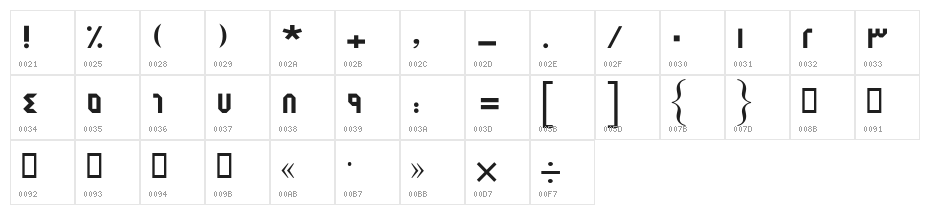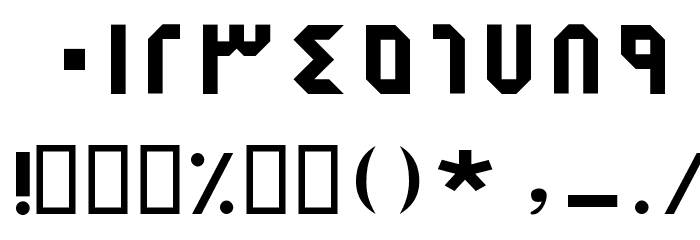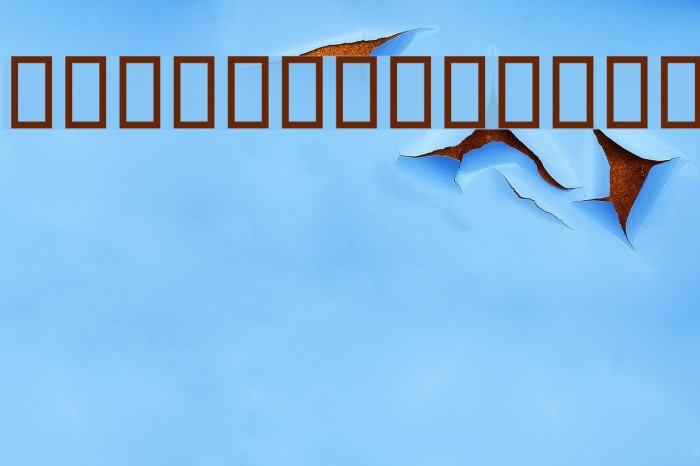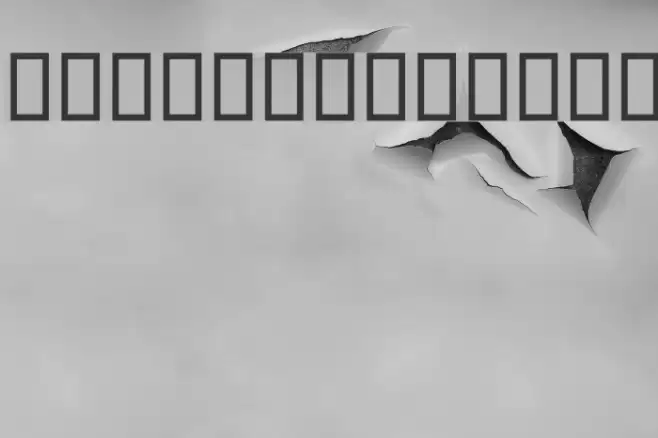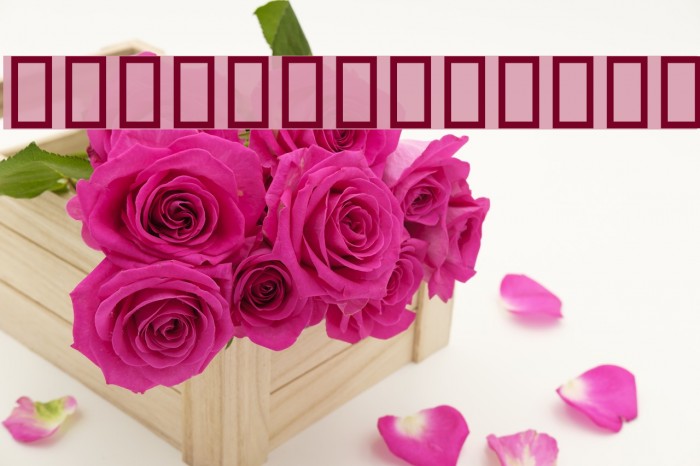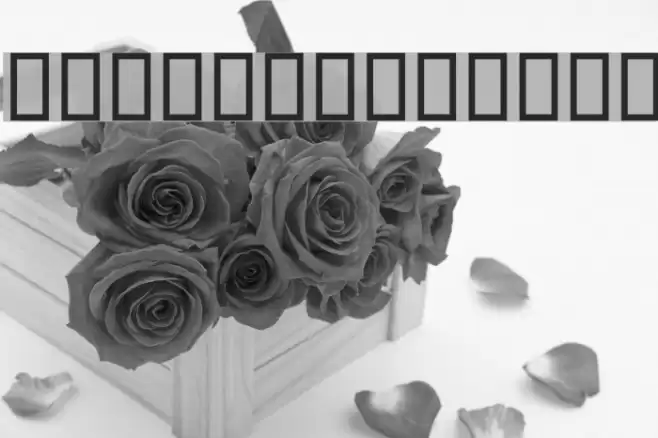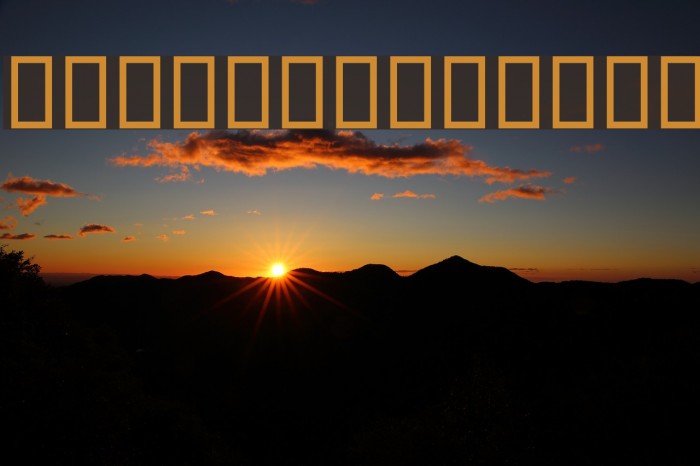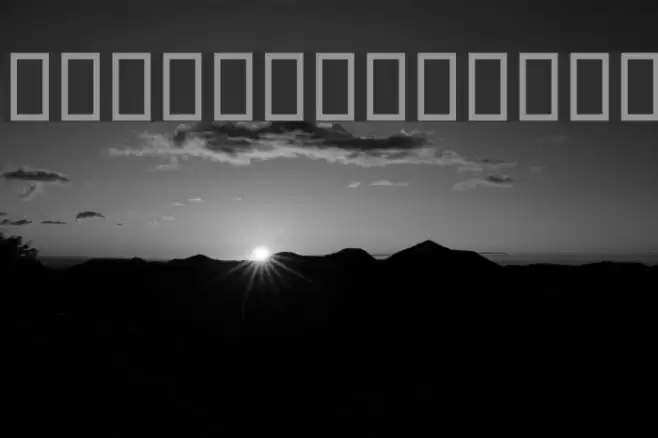
Felez Font
Felez Description
This font features a bold, geometric design with a futuristic and angular appearance. The characters are constructed with sharp edges and straight lines, giving it a modern and digital feel. The uppercase and lowercase letters maintain a consistent style, with a uniform height and width that creates a cohesive look. The numbers and special characters follow the same design principles, ensuring a seamless integration across all glyphs. The font's distinct style makes it suitable for projects that require a strong, impactful visual presence.
| Proposed Projects | Ideal for technology branding, video game titles, sci-fi posters, and digital interfaces. |